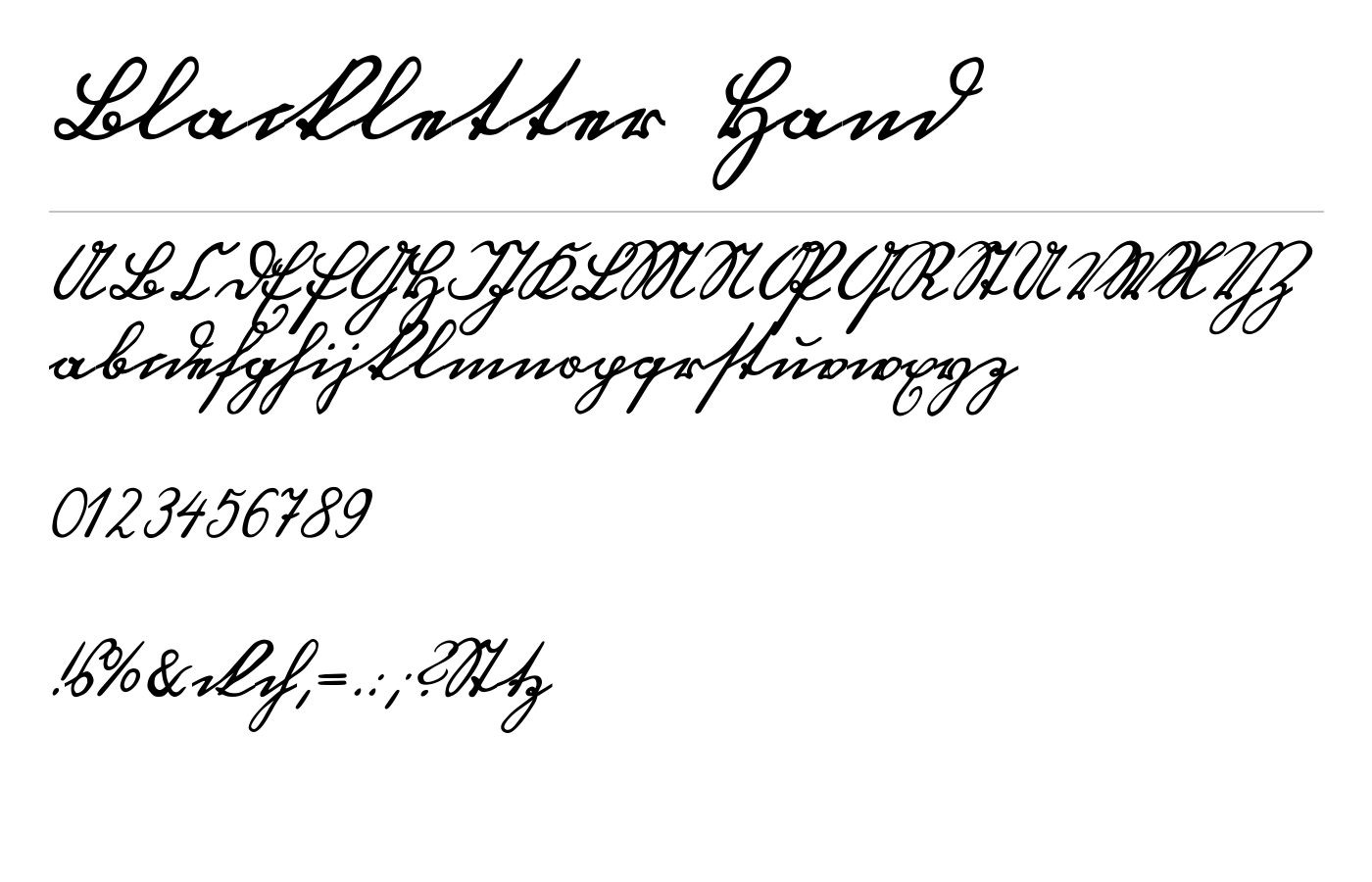
Blackletter Hand Font is a delicate and flowing script font that mimics elegant, handwritten calligraphy with a vintage charm. Its slender, connected letterforms and smooth curves create a refined, classic feel ideal for invitations, branding, or editorial projects that seek a personal, sophisticated touch. This font works best where a graceful, nostalgic atmosphere is desired, lending a timeless and artistic flair to design.
Blackletter Hand Font
About Blackletter Hand Font